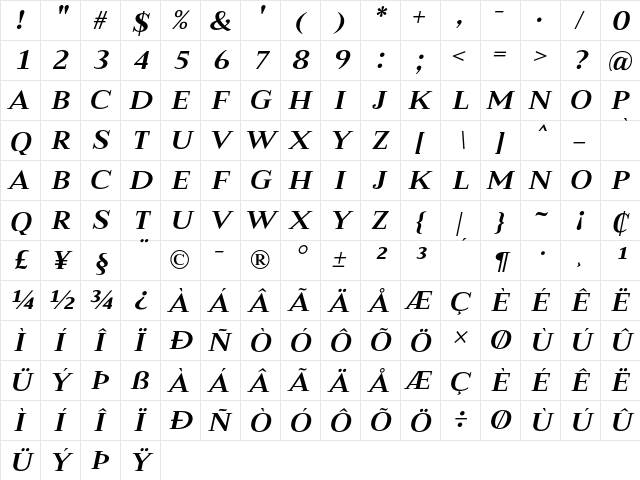
Merysha Italic
| Foundry | 7NTypes |
| Designer | Situjuh Nazara |
Design Context for Merysha Typeface
Merysha offers clean, dependable letterforms without strong stylistic allegiance, making it a practical choice for designers who need flexibility. The slanted form adds forward momentum and visual energy.
Pro Tip: Use Merysha for emphasis, pull quotes, and subheadings where its slanted energy can add rhythm to the layout.